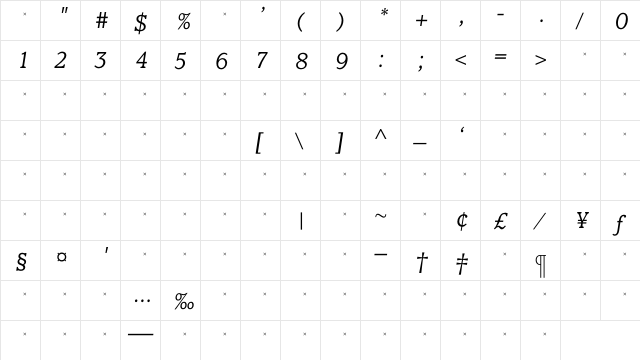
ClaremontLtItalTab Regular
Design Context for ClaremontLtItalTab Typeface
ClaremontLtItalTab is a composed and adaptable typeface that performs quietly and consistently across a wide range of design contexts.